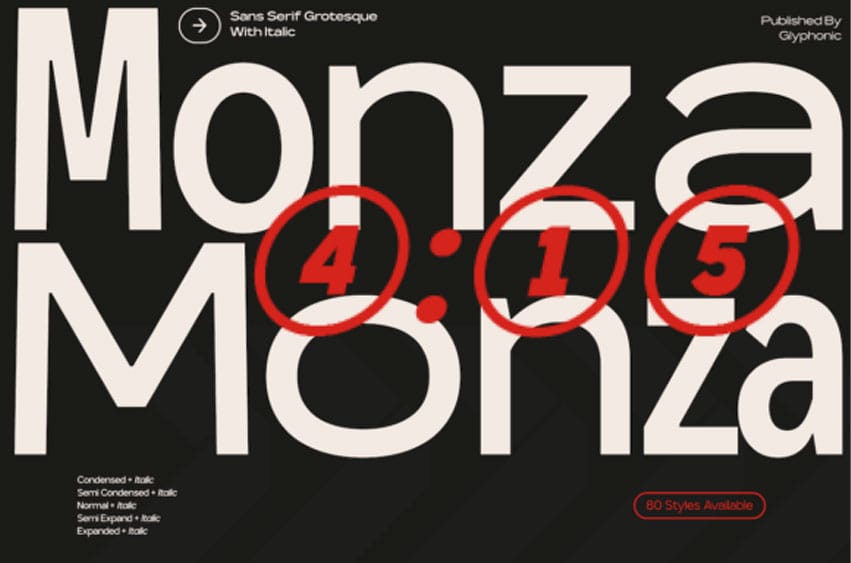
Monza Font is a contemporary sans serif typeface engineered for precision, versatility, and strong visual character.
Designed with a refined structural system and modern detailing, it balances clarity with subtle complexity—creating a distinctive voice that feels both technical and expressive.
With clean construction, confident strokes, and carefully calculated proportions, Monza delivers exceptional readability across branding, editorial design, corporate identity, packaging, UI systems, and digital interfaces. Its modern personality makes it ideal for projects that demand structure, sophistication, and dynamic flexibility.
Monza is built as a complete and comprehensive type family, offering an extensive width system to support everything from compact layouts to bold, spacious compositions.
This full-spectrum width system allows designers to create strong hierarchy, consistent branding, and highly adaptable typographic systems across print and digital environments.
Experience total flexibility, structural precision, and modern clarity with Monza – Complex Modern Sans.